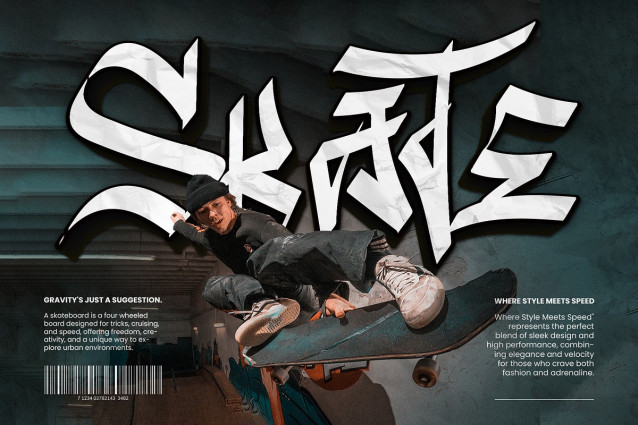
Travis Skud Font
Travis Skud Font is a bold and edgy graffiti-style font inspired by street art, hip-hop culture, and urban rebellion. With sharp strokes, wildstyle flow, and vibrant 3D effects, this font is perfect for posters, album covers, streetwear branding, skate graphics, and any project that needs a raw, underground vibe. It captures the spirit of spray-can freedom and gives your design an instant street cred.